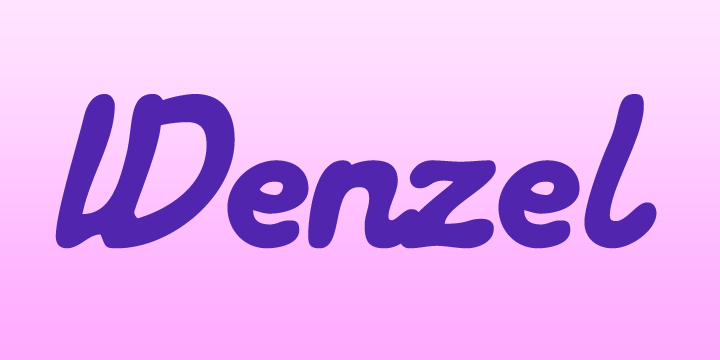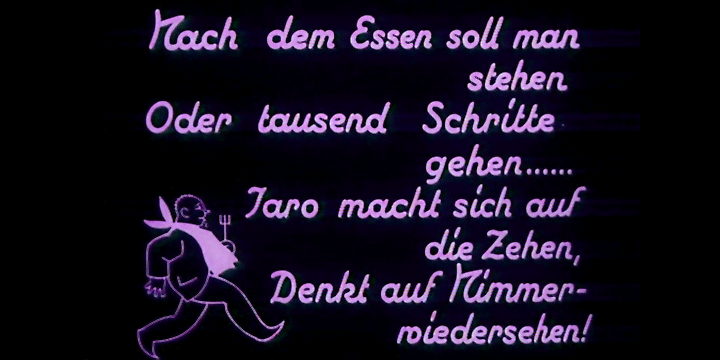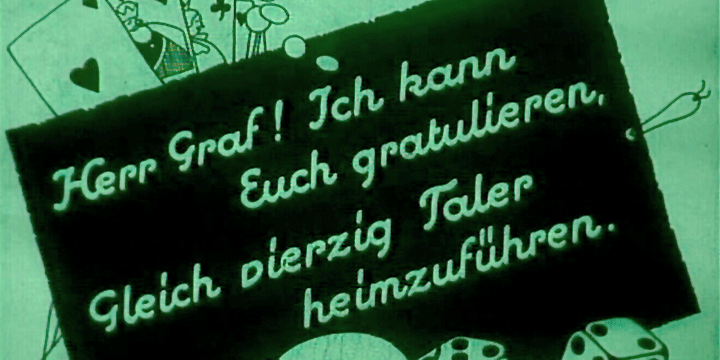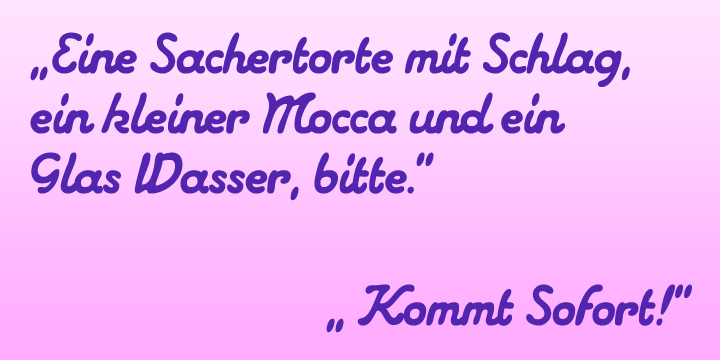
This work is the result of an assignment to digitize and complete a typeface that was used for the intertitles of Kleider machen Leute from 1921.
We only had a basic alphabet with some glyphs missing. Sure, Wenzel is not a beaut, but ... what the heck!